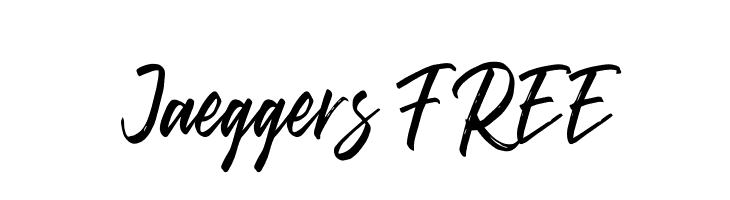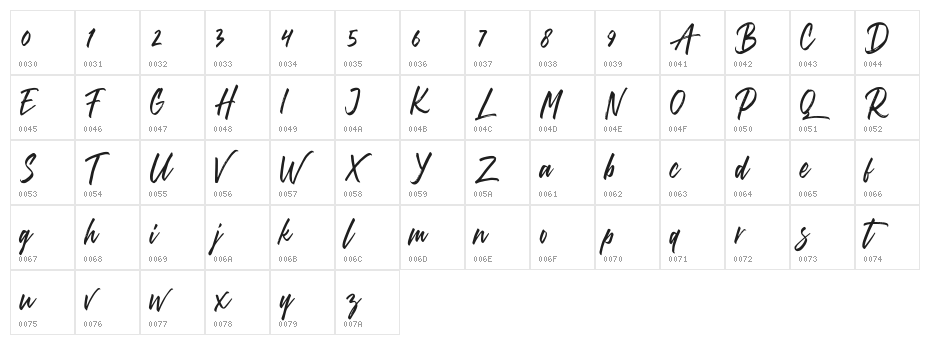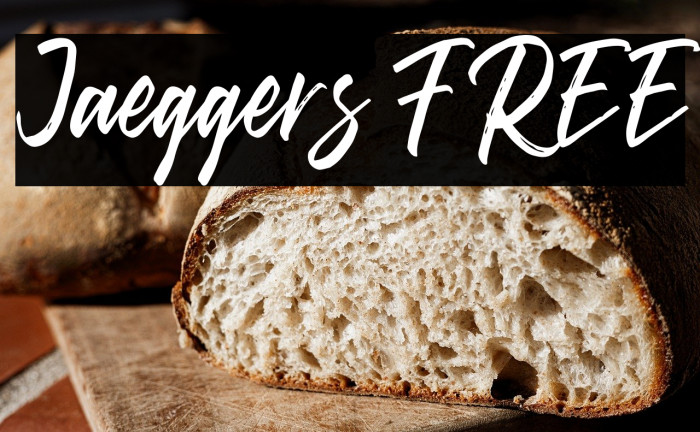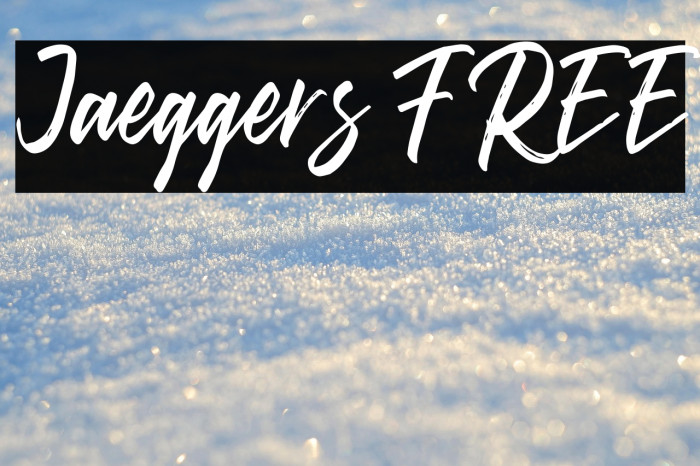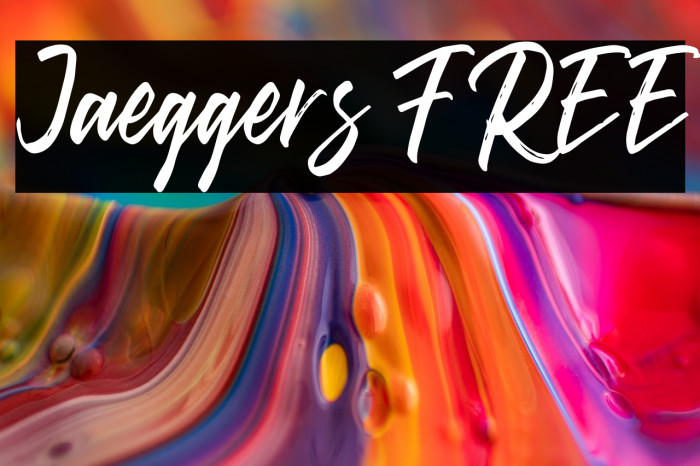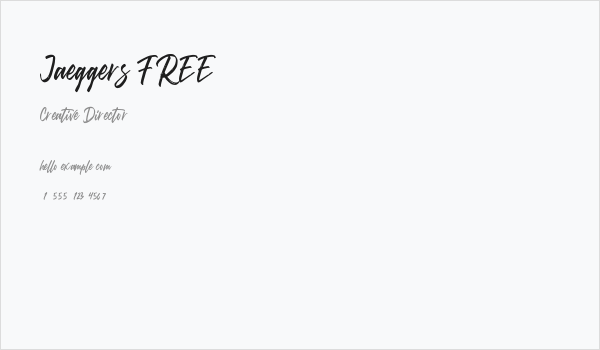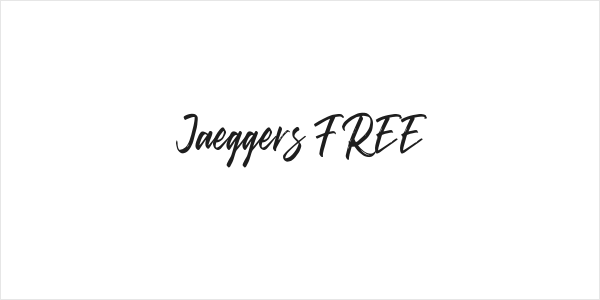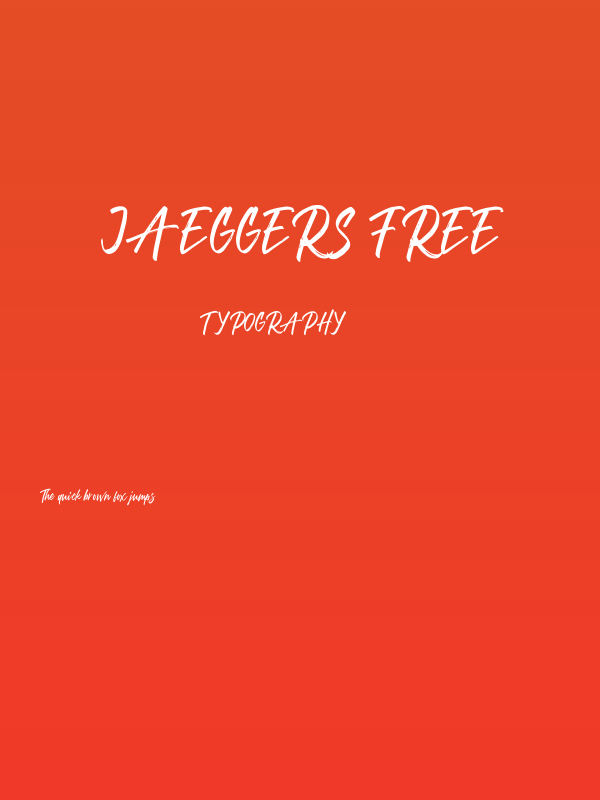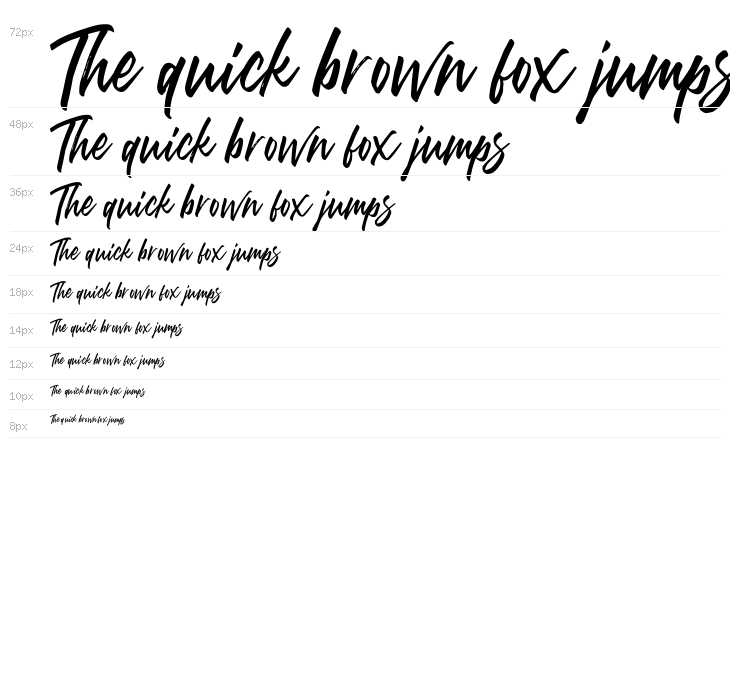
Jaeggers FREE Font
Jaeggers FREE Description
A bold, expressive script font with a handwritten style, featuring dynamic strokes and a casual, artistic flair.
| Overall Style | Decorative |
| Use Case | Logos, Headlines, Artistic designs |
| Proposed Projects | Greeting cards, invitations, branding, and artistic projects. |